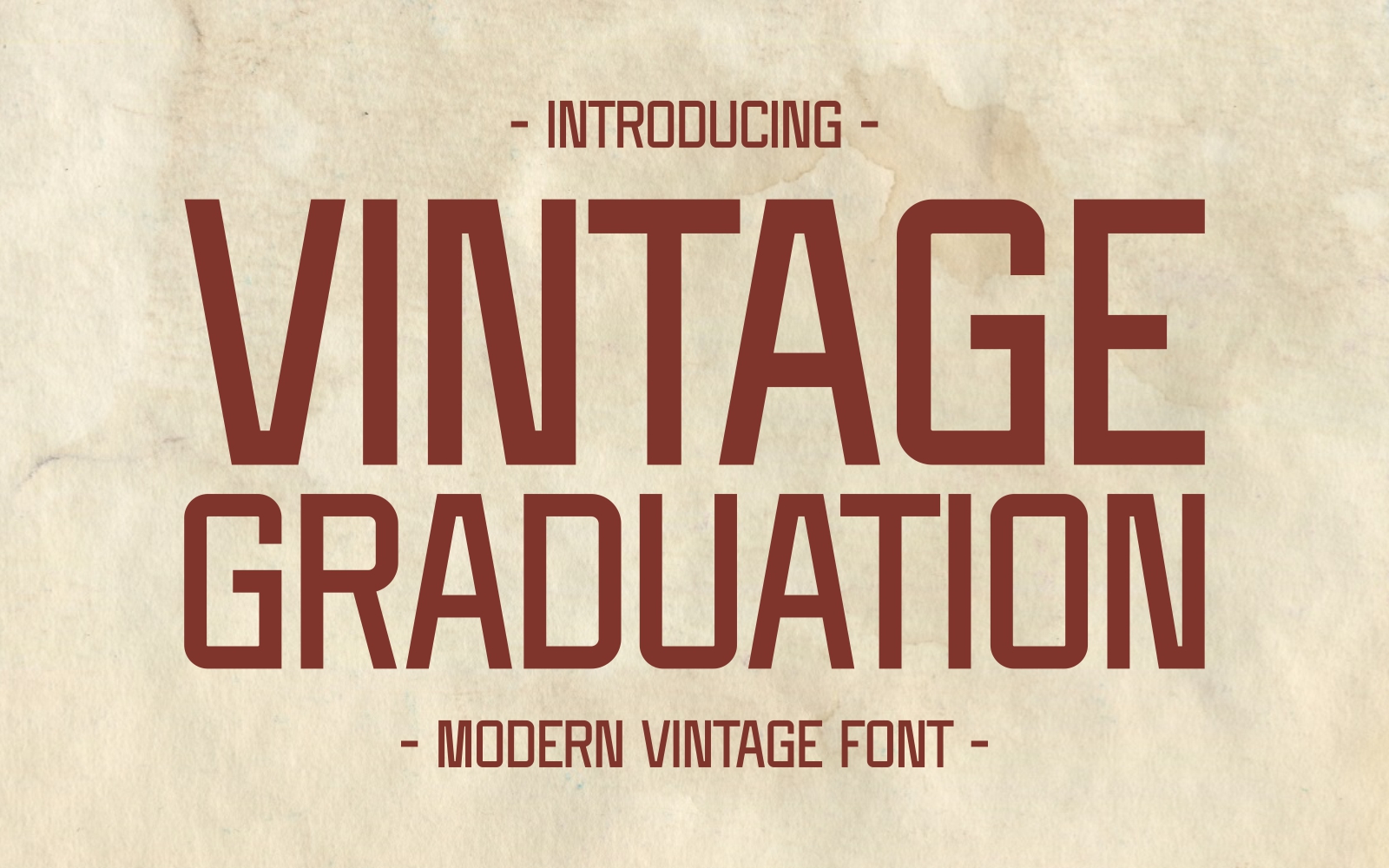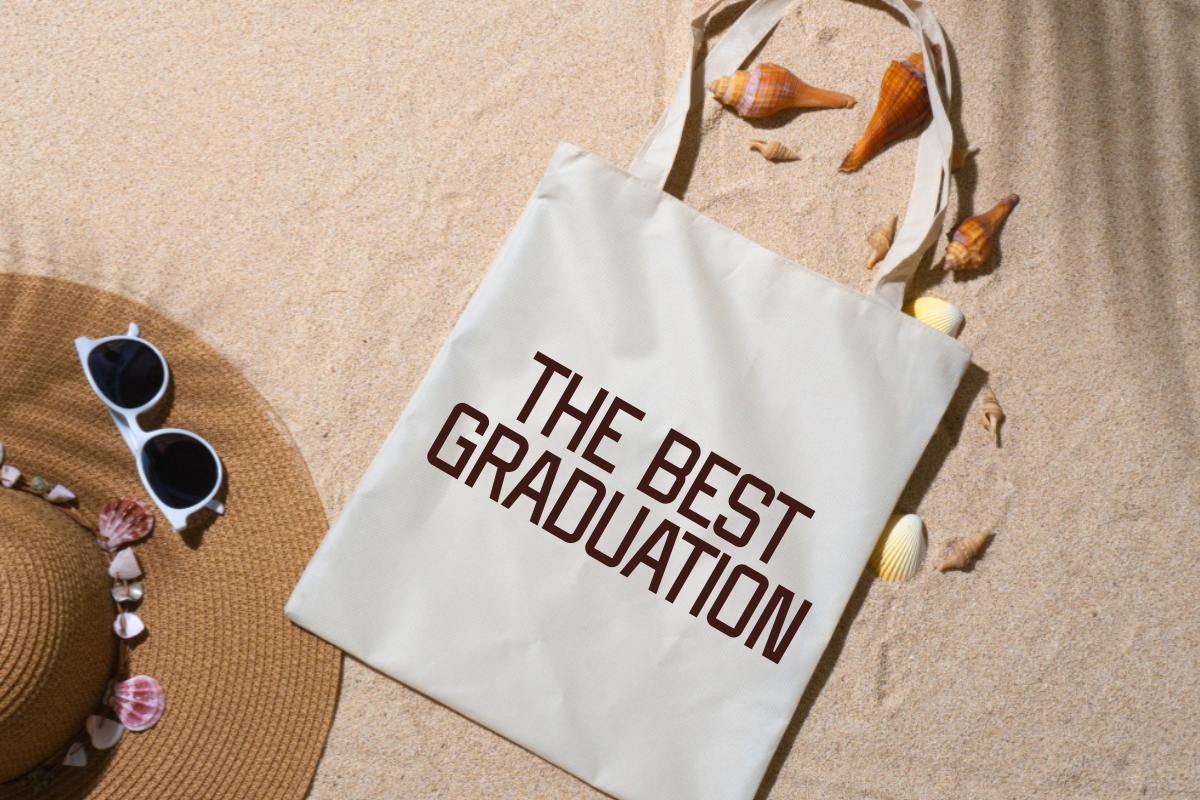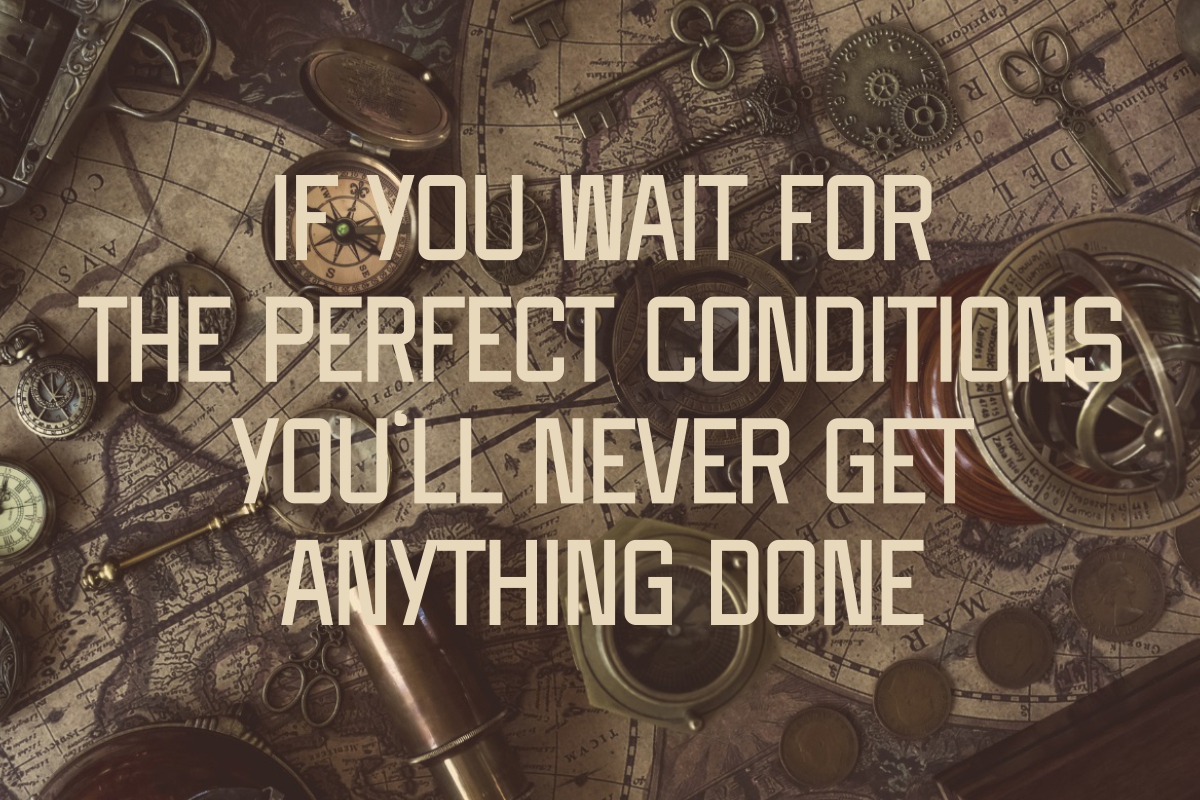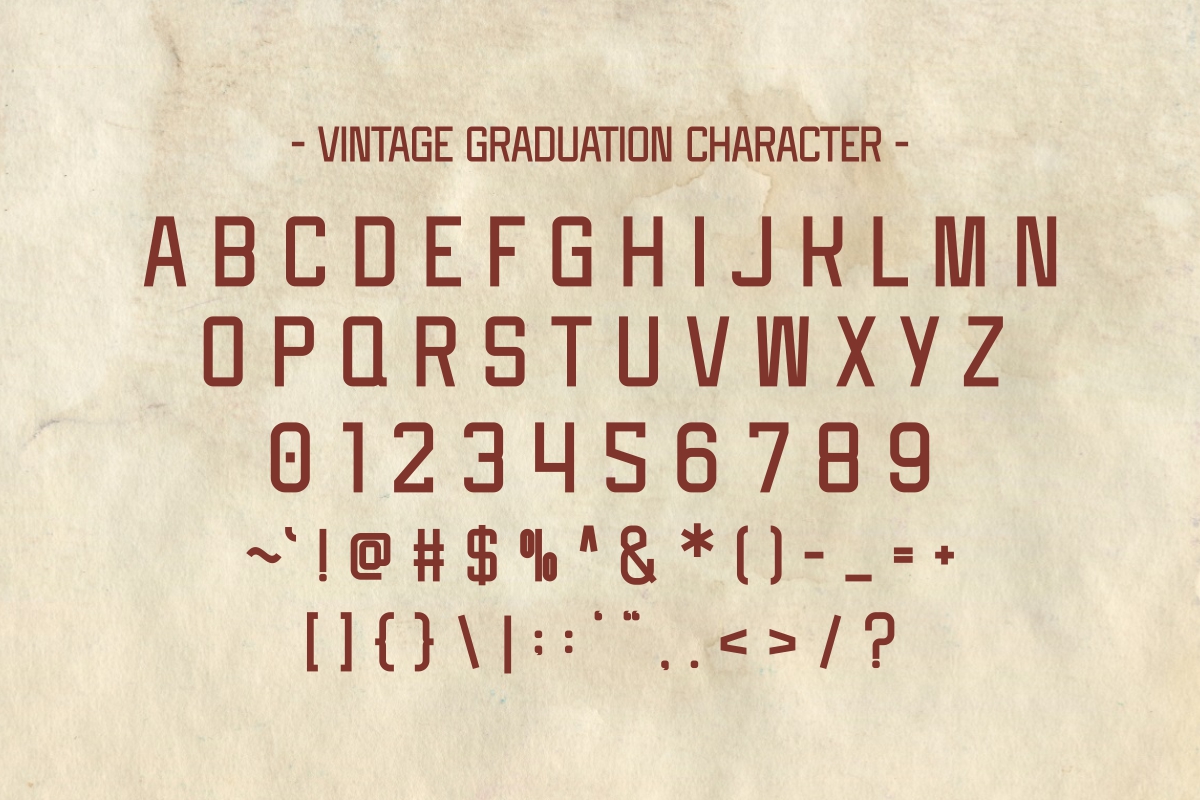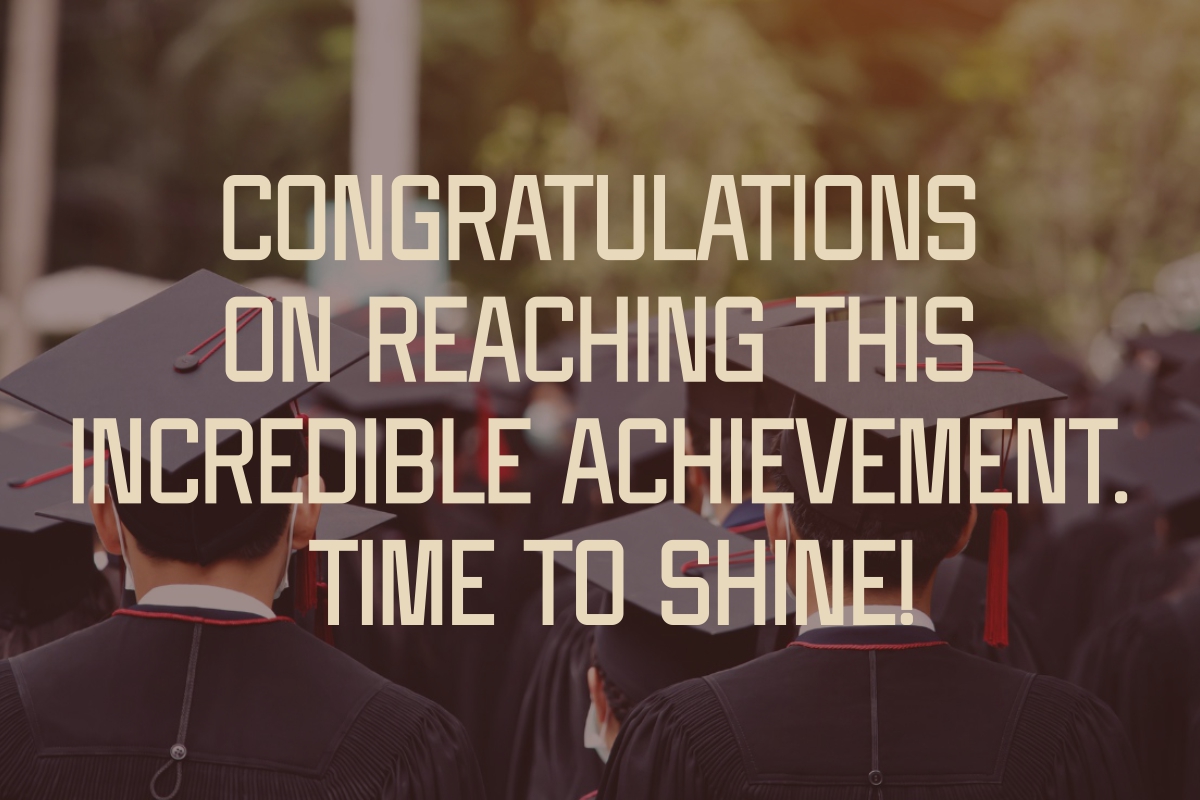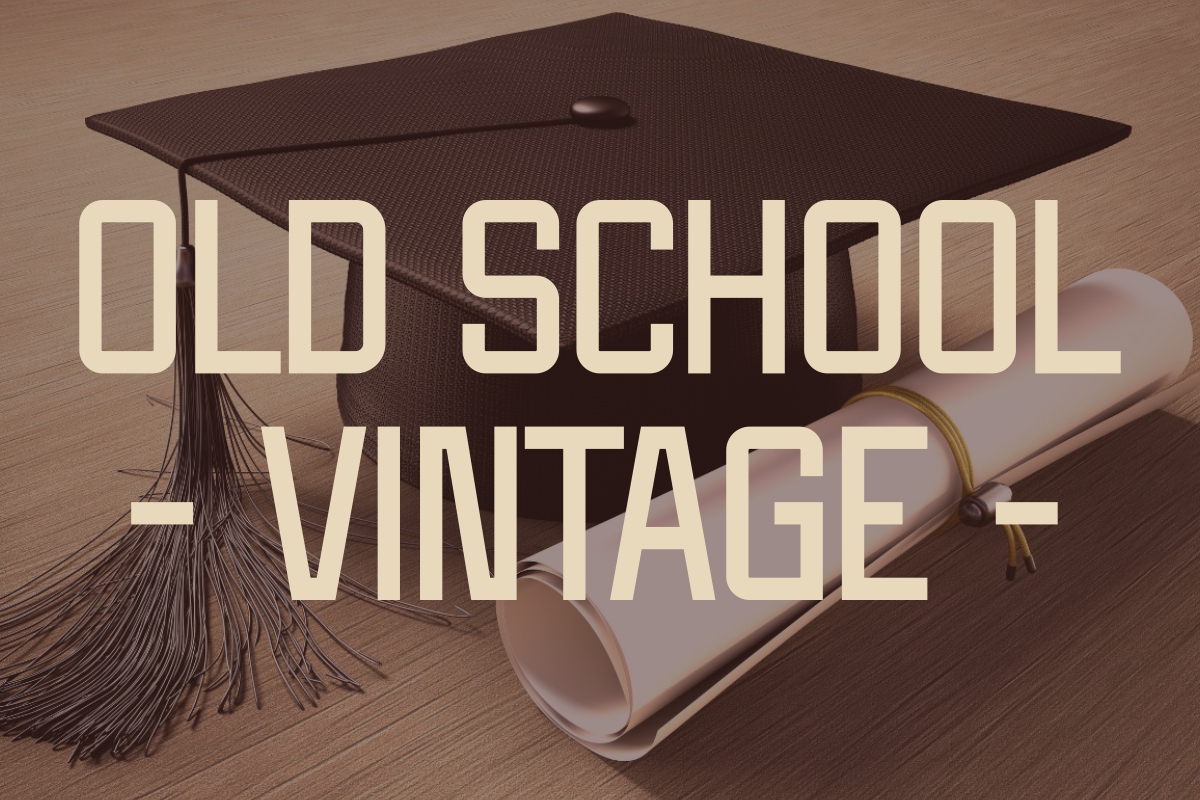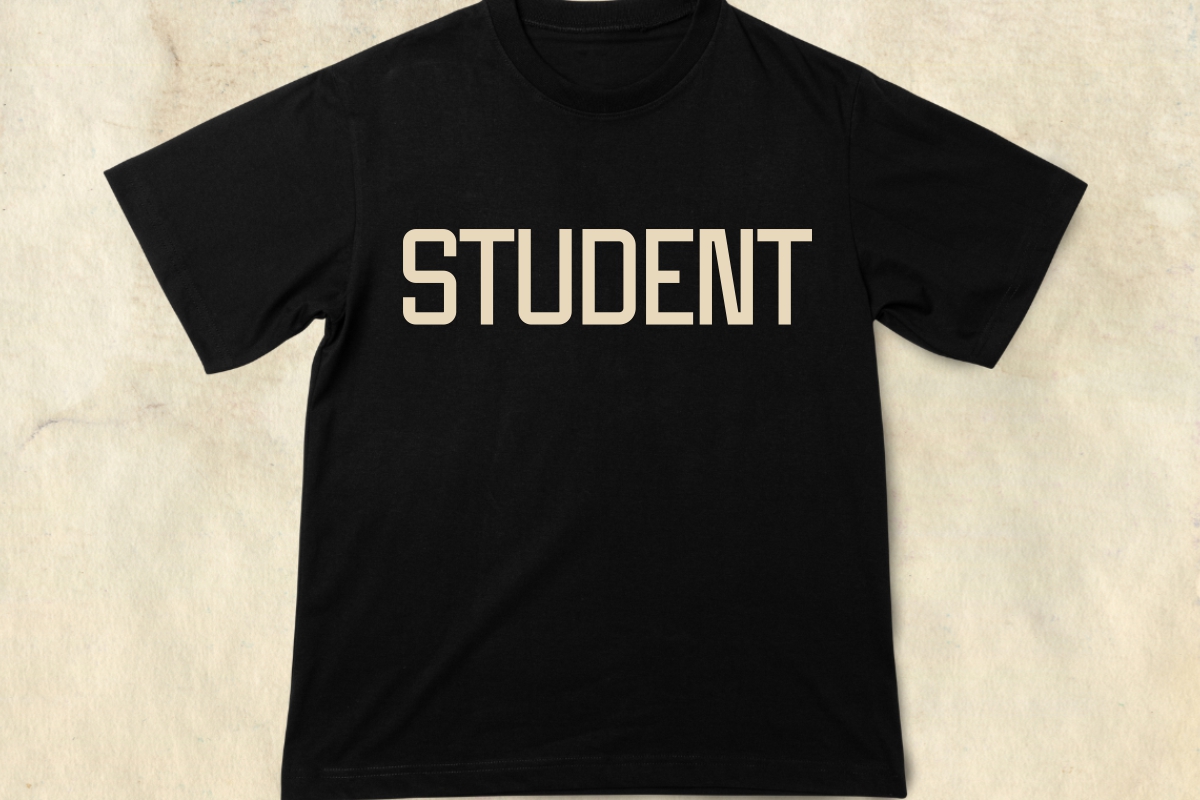
Vintage Graduation - Modern Vintage Font
Vintage Graduation is a vintage bold and classic sans-serif font designed to commemorate the celebration of academic achievement. With its modern yet timeless style, this font exudes elegance, clarity, and strength, making it perfect for capturing the essence of graduation festivities.